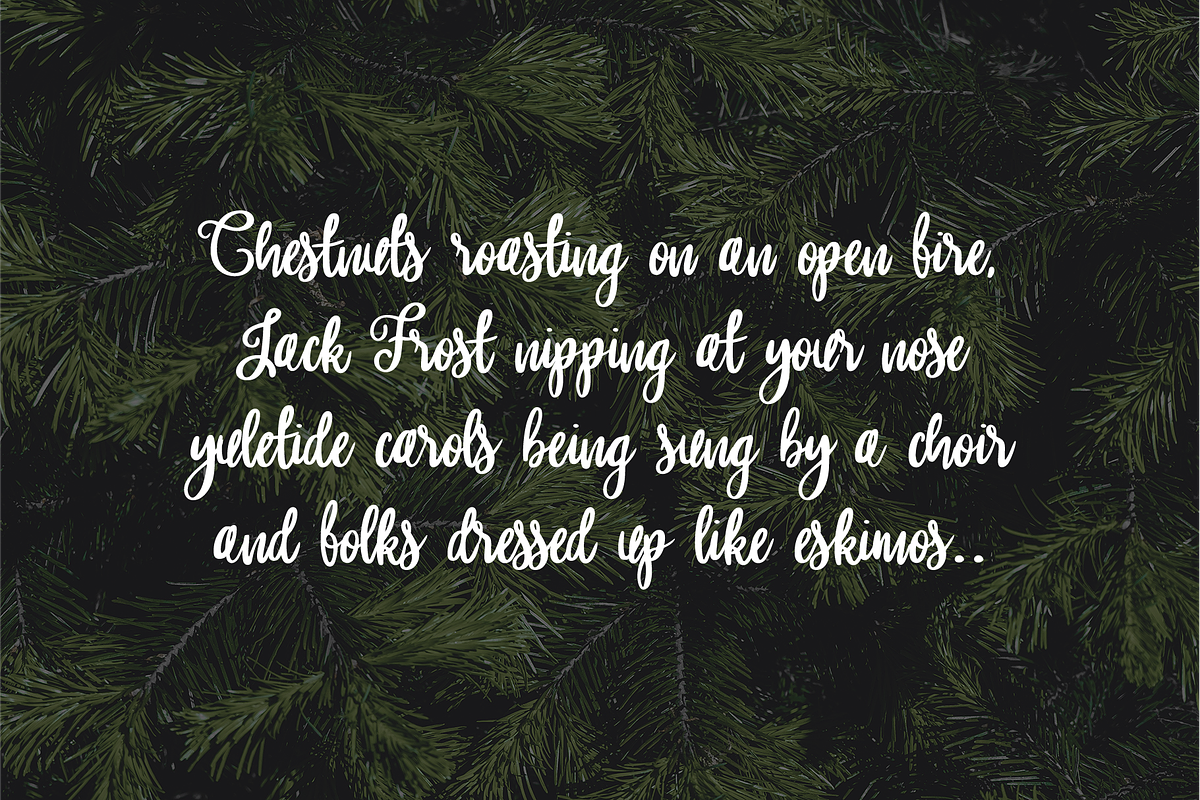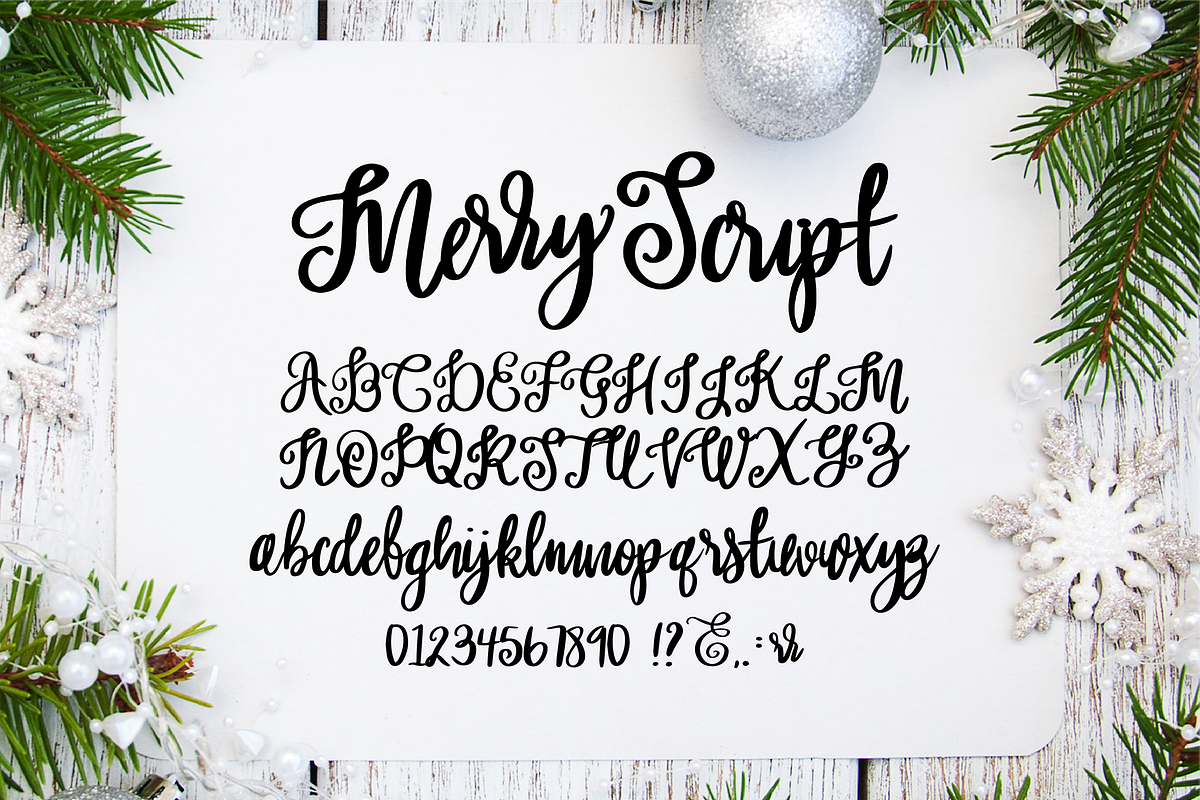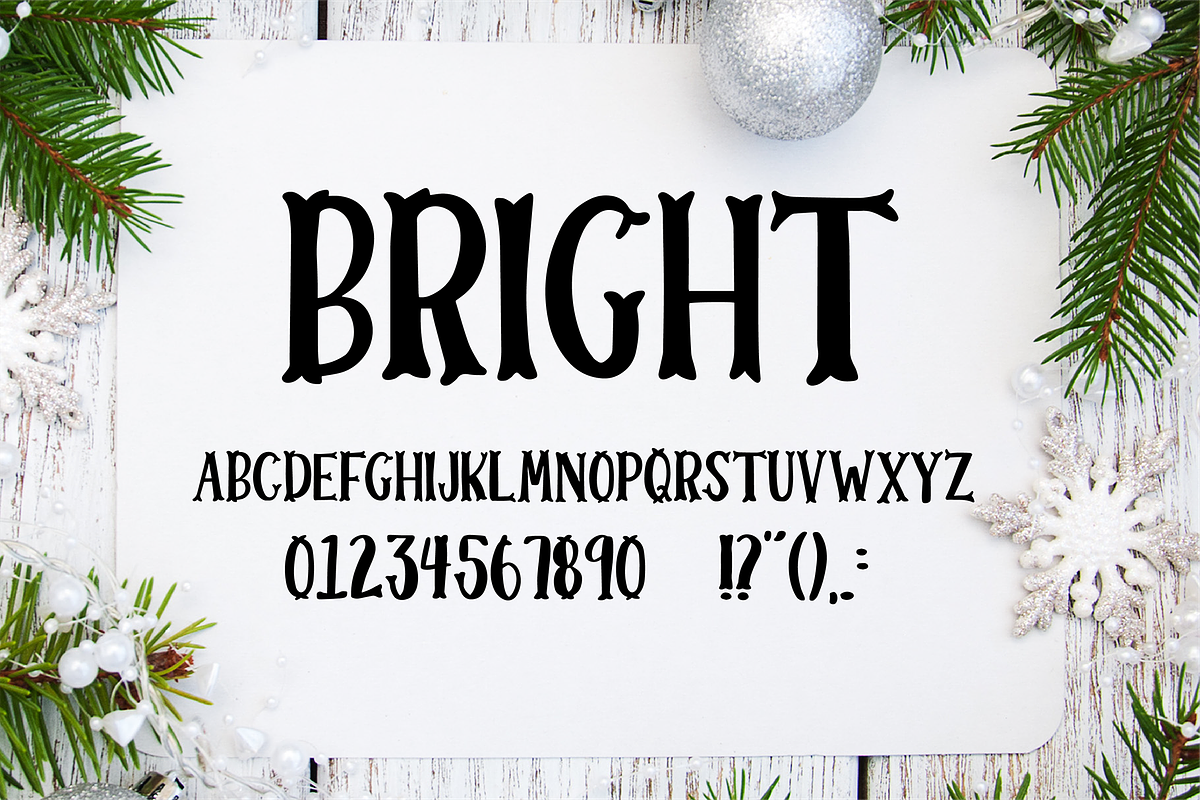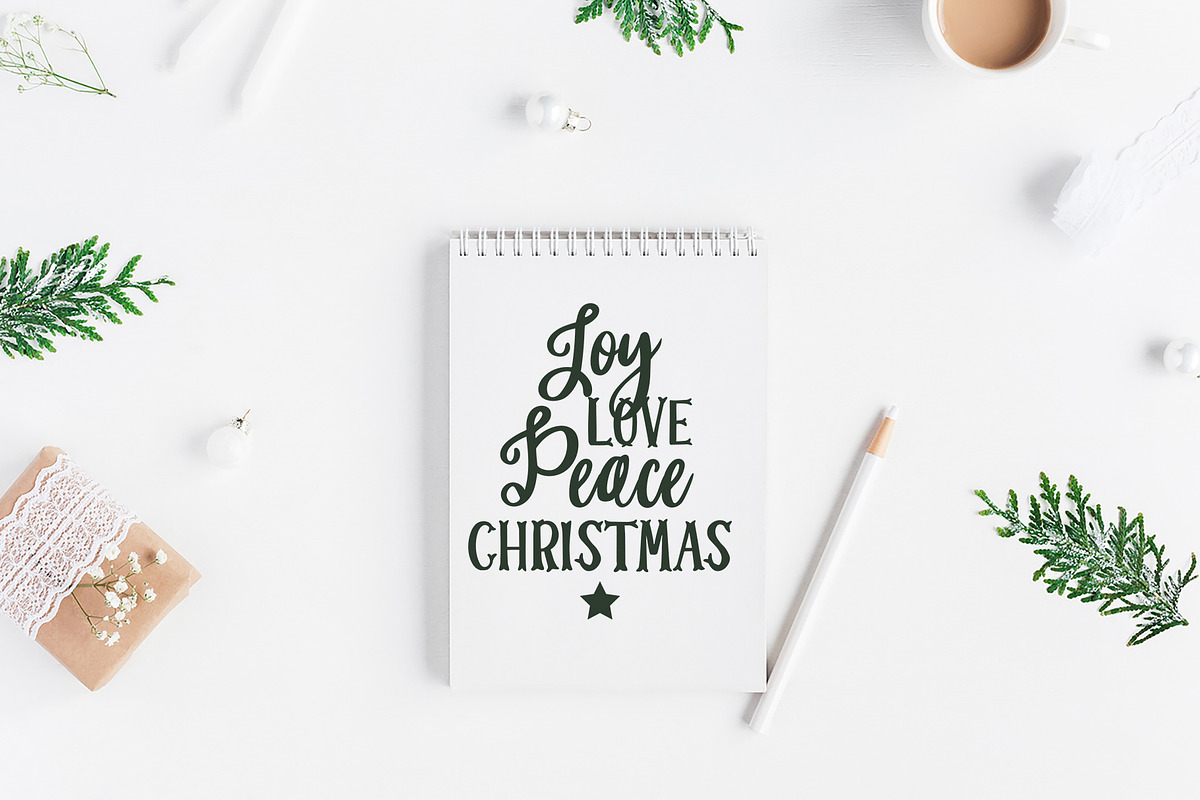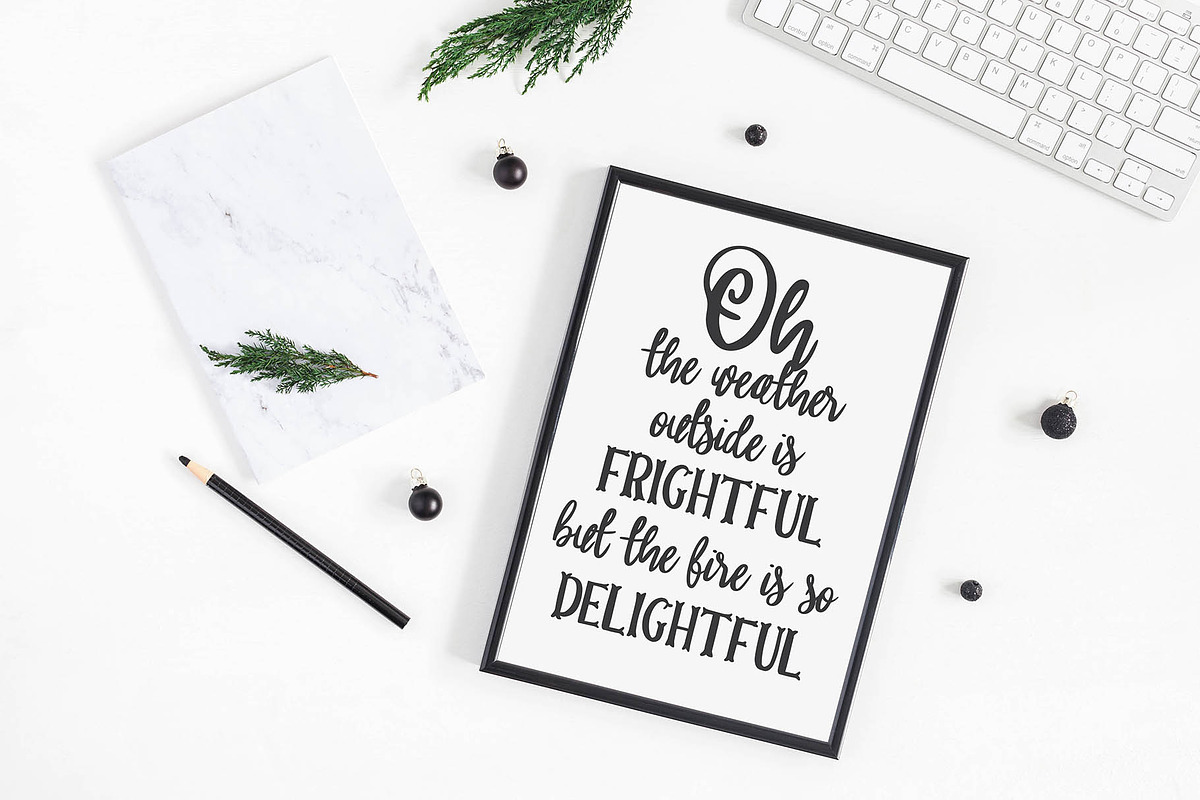
MERRY & BRIGHT Christmas Font Duo
Merry & BRIGHT Christmas Font Duo
{ A typographic font hand lettered with love by Dixie Type Co. }
Merry & Bright is the perfect combination for your holiday projects. Use it for Christmas cards, Christmas crafts for decor and more! This pair is very cute together! Both fonts include numbers and some basic punctuation marks.
- Both fonts include numbers and some basic punctuation marks.
- DTC Bright Regular
- DTC Merry Regular